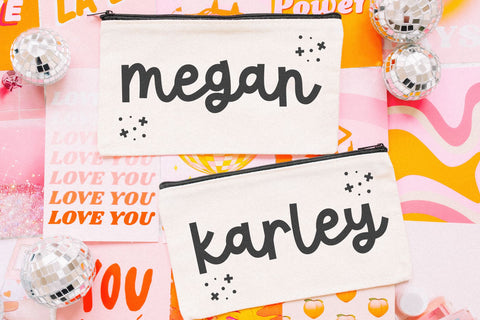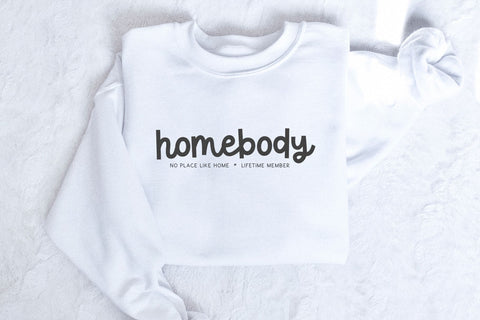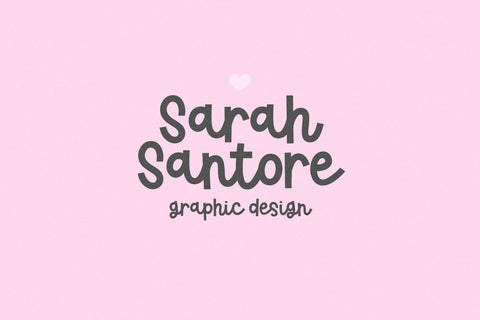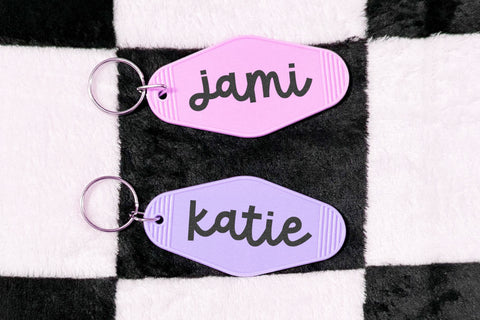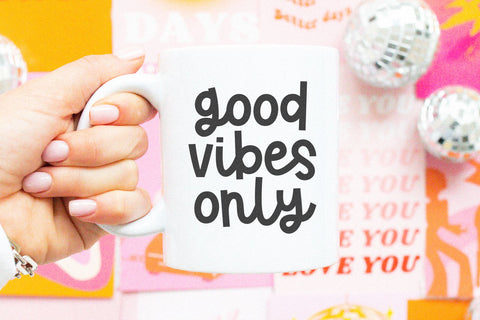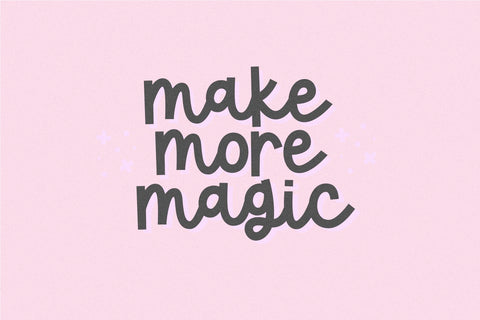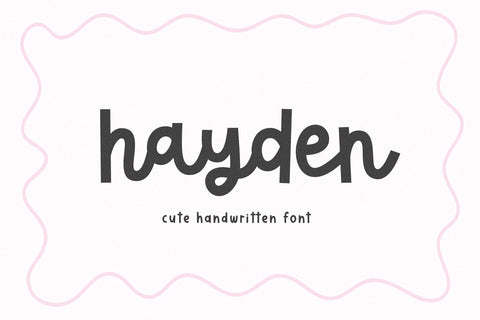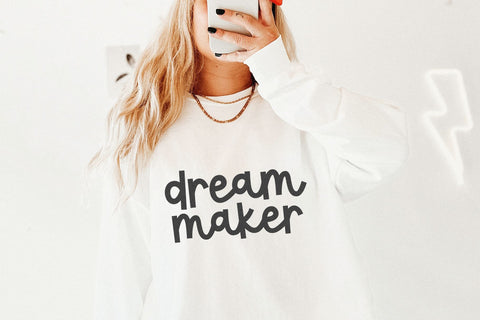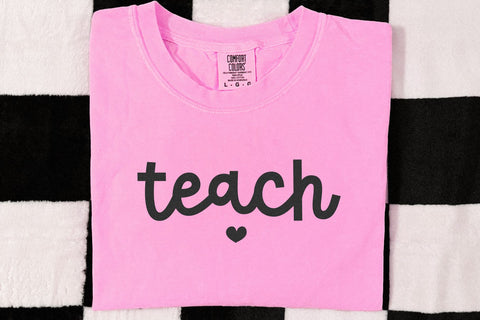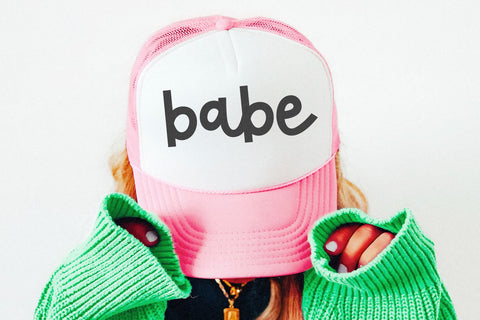
Hayden - Cute Handwritten Font
Hayden is a cute and bouncy handwritten font.
This font is perfect for cricut projects, logos, shirts, svg files, names, posters, teachers, goodnotes, lasers and more!